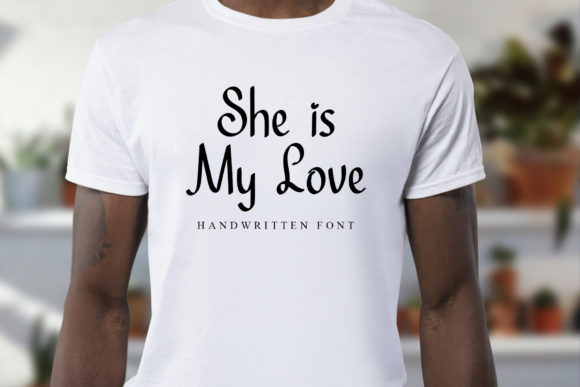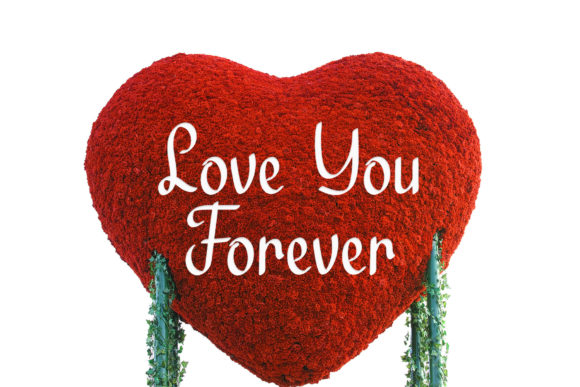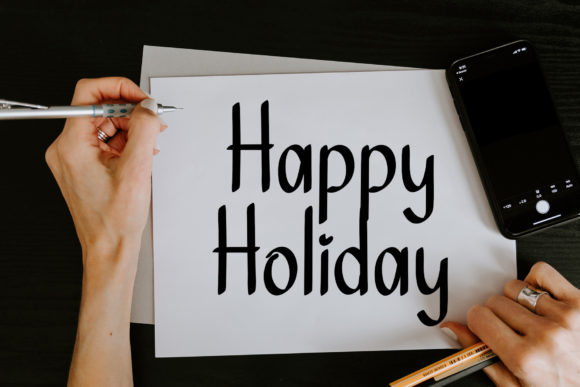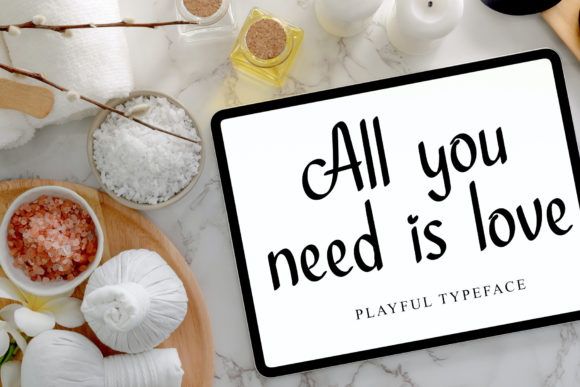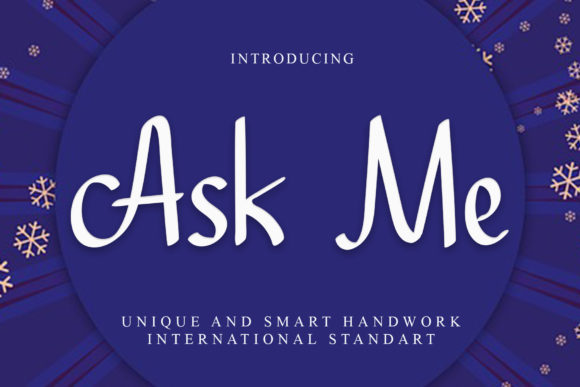
Introducing Ask Me Font: Elevate Your Designs with Elegance and Personality
Are you on the hunt for a font that adds a touch of elegance and uniqueness to your designs? Look no further than the Ask Me Font. This beautiful, handwritten font is designed to bring a natural, hand-made feel to your projects, making them stand out with a personal touch. In this article, we’ll dive into the features of the Ask Me Font, explore its uses, and discuss why it’s a must-have for designers and crafters alike.
The Unique Charm of Ask Me Font
Ask Me Font is a one-of-a-kind, elegant handwritten font that boasts a varied baseline, giving it a dynamic and organic feel. This unique characteristic sets it apart from more traditional fonts, allowing your designs to have a personality that’s both sophisticated and approachable. The natural, hand-made touch of Ask Me Font ensures that your projects exude warmth and authenticity, making them more relatable to your audience.
One of the standout features of the Ask Me Font is its versatility. Whether you’re working on a branding project, crafting a beautiful wedding invitation, or designing engaging social media content, this font adapts seamlessly to any style or theme. Its elegant and refined appearance makes it suitable for a wide range of applications, from luxury goods and high-end services to creative crafts and personal branding.
Pairs Well with Various Design Elements
The beauty of the Ask Me Font lies not only in its standalone elegance but also in how well it pairs with other design elements. It complements geometric shapes, watercolor backgrounds, and minimalist illustrations, enhancing their beauty without overpowering them. This compatibility makes it an excellent choice for designers who like to experiment with different textures and styles.
Perfect for Digital and Print Media
In today’s digital age, having a font that works well across various platforms is crucial. The Ask Me Font is meticulously designed to look stunning in both digital and print media. Its clear and readable structure ensures that your message is conveyed effectively, whether it’s on a website, a mobile app, a brochure, or a poster.
Why Designers and Crafters Love Ask Me Font
- High-Quality Output: With its high-resolution and clear characters, the Ask Me Font ensures that your designs look professional and polished.
- Support for Various Languages: For designers working on international projects, the Ask Me Font offers support for multiple languages, making it a versatile tool in your typography arsenal.
Tips for Using Ask Me Font Effectively
To make the most of the Ask Me Font, consider the following tips:
- Mix and Match: Don’t be afraid to combine the Ask Me Font with other fonts to create visual interest. Its elegance pairs well with both serif and sans-serif fonts.
- Adjust Size and Color: Experiment with different sizes and colors to add depth and hierarchy to your designs.
- Emphasize with Styles: If available, use different styles of the Ask Me Font (like italic or bold) to emphasize certain parts of your text.
The Ask Me Font is a valuable addition to any designer’s toolkit. Its unique blend of elegance, versatility, and personality makes it an ideal choice for a wide range of projects. Whether you’re a professional designer or a crafting enthusiast, this font has the potential to elevate your work and make it more engaging. With its ease of use, high-quality output, and constant updates, the Ask Me Font is sure to become a favorite in your collection.